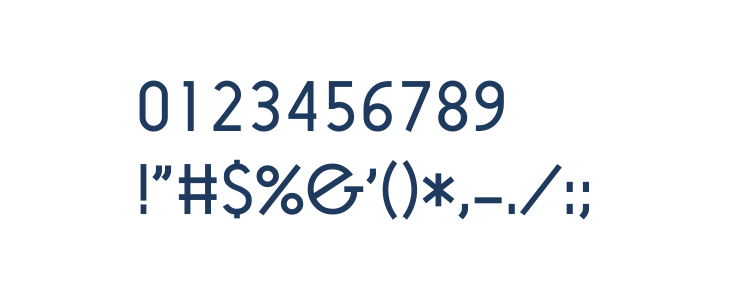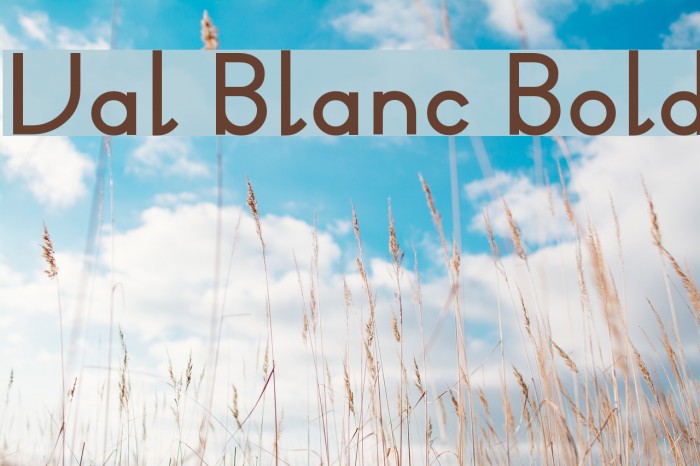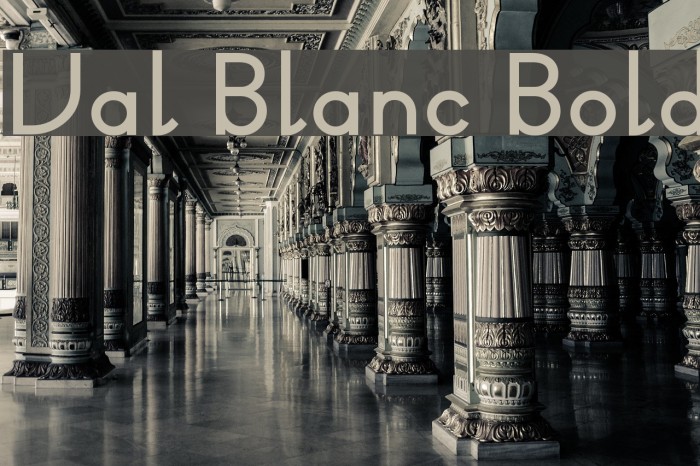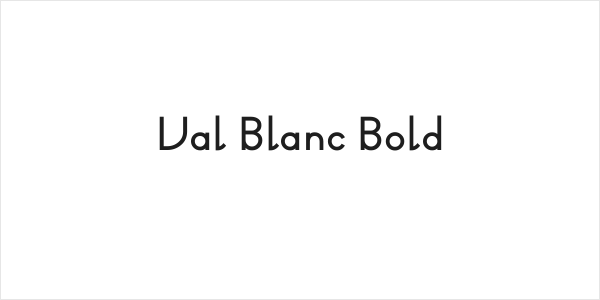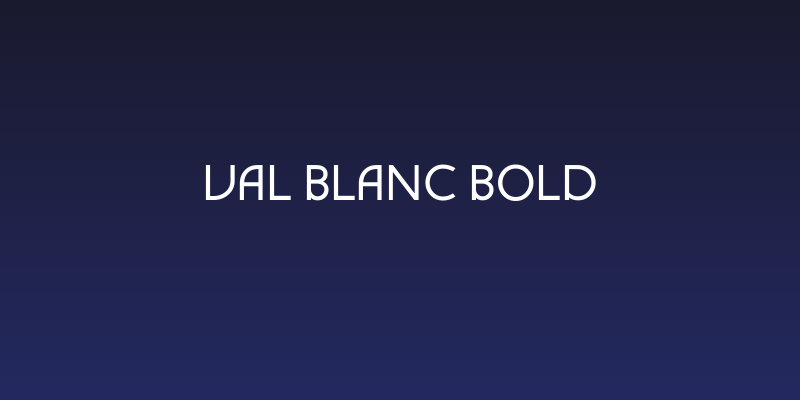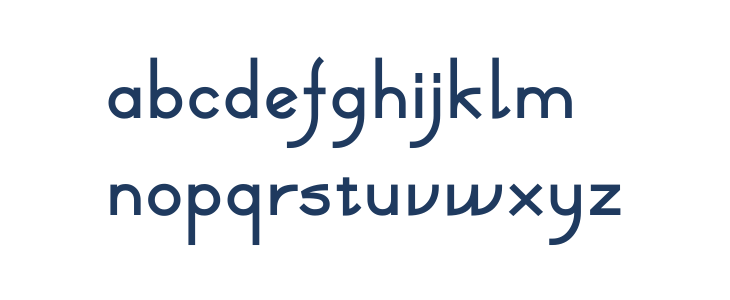
Val Blanc Bold Font
Val Blanc Bold Description
This font features a clean and modern design with a geometric structure. The characters are well-balanced, with a consistent stroke width that provides a uniform appearance. The uppercase letters are slightly taller than the lowercase, offering a distinct hierarchy. The numerals are clear and easy to read, making them suitable for various applications. Special characters are crafted with precision, maintaining the overall aesthetic of the typeface. The font's simplicity and elegance make it versatile for both digital and print media.
| Proposed Projects | Ideal for branding, advertising, web design, and editorial projects where a modern and clean look is desired. |